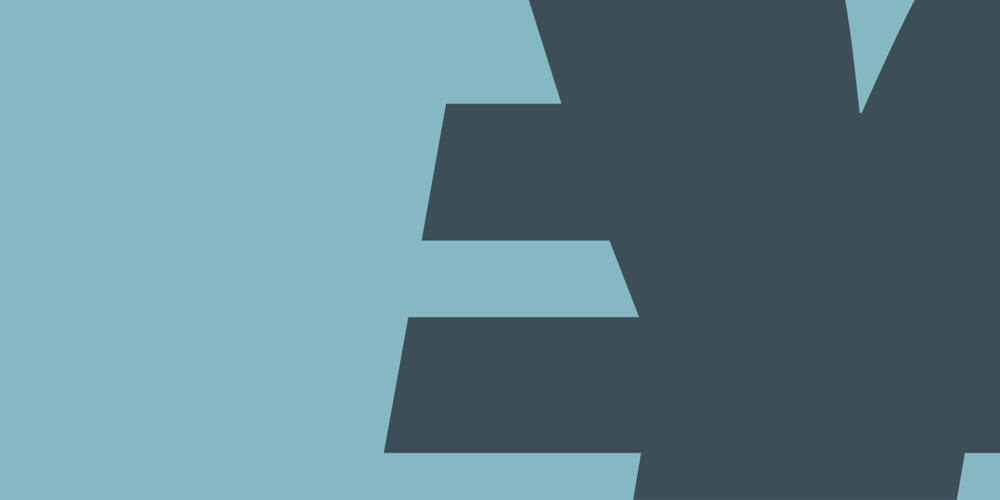
Soho Gothic
Soho Gothic Font Family was designed by Sebastian Lester and published by Monotype. Soho Gothic contains 14 styles and family package options. “There is just something magical about type design,” says Sebastian Lester. “If you draw a successful typeface it can travel the world, taking a part of you with it.” If this is true, his Soho® Gothic family has taken him far and wide. Understated, modern and exceptionally versatile, the family has been put to good use in just about every application imaginable. A good choice for virtually any type of project, The Soho Gothic family performs equally well as the backbone of a global brand as it would in an edgy fashion magazine. Versatile, extensive, customizable, and multilingual – the Soho Gothic typeface family has it all.With the same proportions as Soho, its slab serif cousin, Soho Gothic ranges across seven weights, from a willowy hairline to a brawny ultra – each with a complementary italic.Lester took care to ensure that the Soho and Soho Gothic designs work in perfect harmony. According to him, “The typefaces were developed alongside each other so that I could consider every aspect of each design and be certain that they would be absolutely compatible.”Soho Gothic is a more understated and more subtle design than Soho. Features that give the design its distinctive tone are the flat, crisp apexes of the diagonal characters like the A and V, and the marked horizontal stress in the a, g and s. “I wanted the family as a whole to radiate effortless modernity,” recalls Lester, “to be a master communicator that works in all conditions and at all sizes.” A collection of alternate and “semi-slab” characters were also part of Lester’s plan. “I like to develop alternate characters for all my type designs,” he says. “I believe they give graphic designers greater flexibility and make a typeface more valuable.” Soho Gothic is available as OpenType® Pro fonts that have an extended character set which supports most Central European and many Eastern European languages. If you’re looking to complete your designs, consider pairing it with Bembo® Book,Joanna® Nova,Neue Frutiger®,PMN Caecilia®,or ITC Stone® Serif.